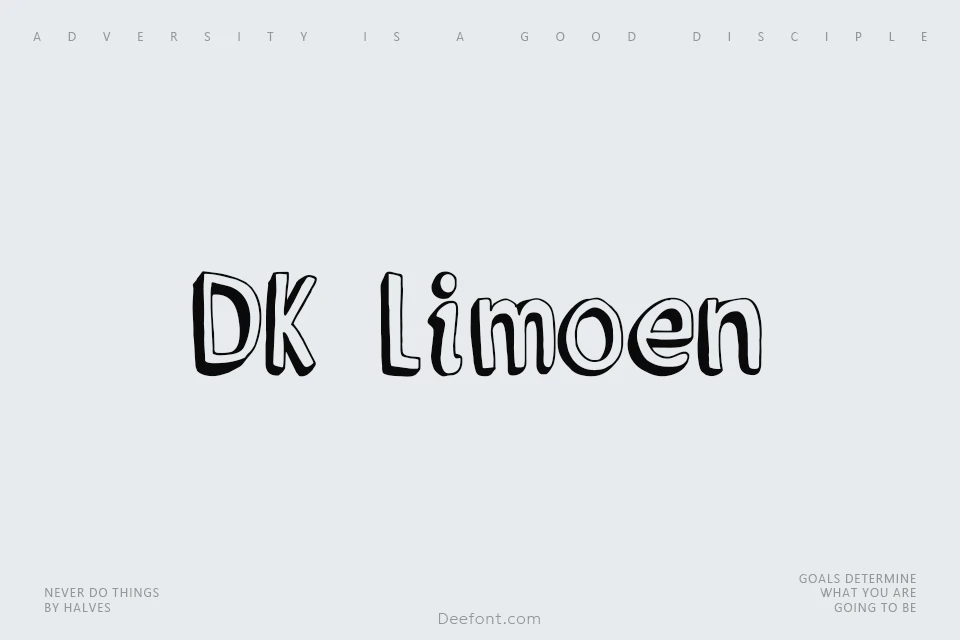
DK Limoen Font
DK Limoen is a charming and playful font designed by David Kerkhoff. This fun typeface features a three-dimensional appearance, making it perfect for eye-catching poster ads and display purposes. With both uppercase and lowercase letters, DK Limoen offers versatility in design projects. Its cute and lively style works well for branding, product packaging, social media graphics, and other creative endeavors requiring a touch of whimsy. The font is free for personal use but requires a license for commercial applications. DK Limoen’s unique character set and appealing aesthetics make it a popular choice for designers looking to add personality and visual interest to their work.